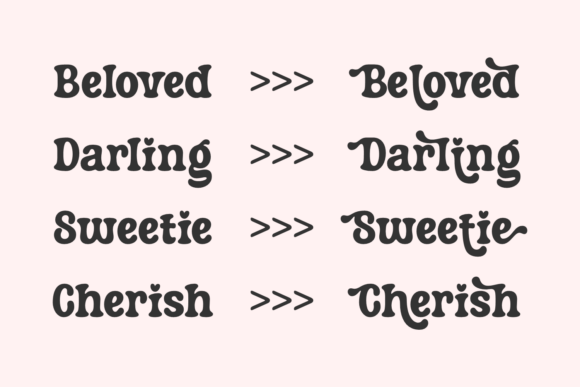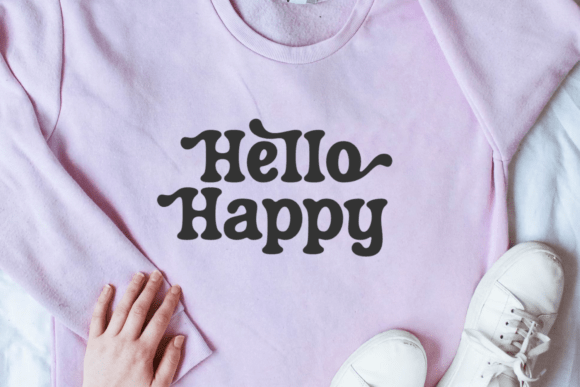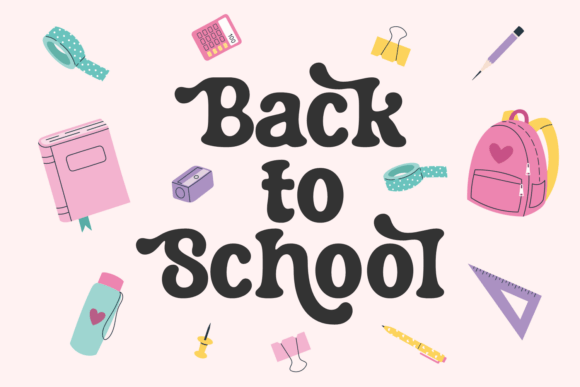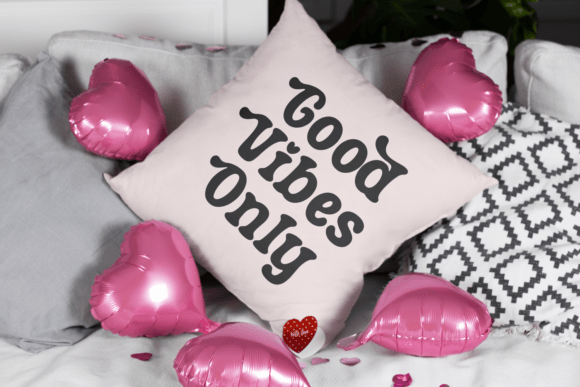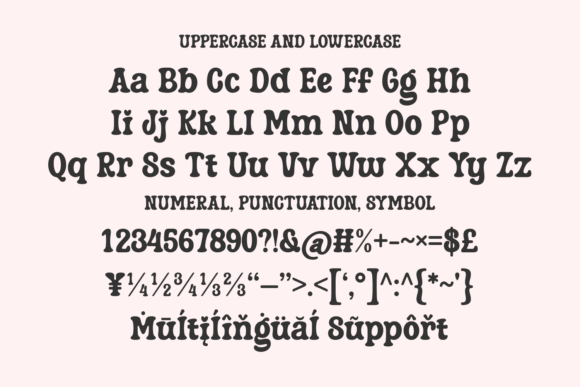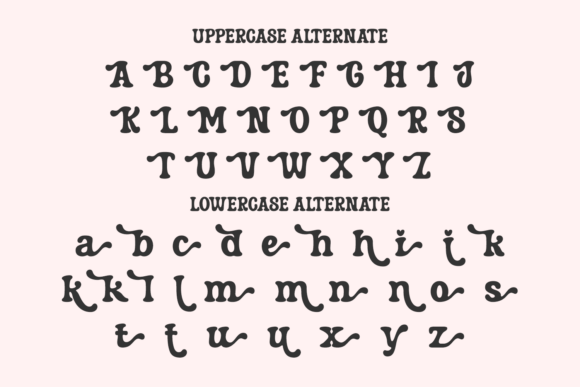
Introduction to Funky Pickle Font
Remember that moment when you stumbled upon the perfect font for your design project? The one that elevates your creativity and makes your work stand out from the crowd? For designers, finding that ideal font can be a game-changer. That’s exactly what the Funky Pickle Font offers – a unique blend of vintage charm and modern sophistication that’s sure to captivate your audience.
As a valuable resource for designers, the Funky Pickle Font is a high-quality design asset that can be easily downloaded and integrated into your creative project. With its transparent background and quirky appeal, this font is perfect for a variety of themes, from hipster to hippie, and everything in between. Whether you’re working on a birthday design or a romantic Valentine’s project, the Funky Pickle Font is sure to add an extra layer of sophistication and style.
Key Features of Funky Pickle Font
- Unique, hand-drawn design making it a great resource for creative projects
- Perfect for designers looking for a fun and quirky design element to add to their next project
Honest Review: Funky Pickle Font
One of the things that works well for the Funky Pickle Font is its versatility. It’s perfect for creative projects that need a dash of whimsy, from children’s books to quirky advertisements. The font’s bold lines and playful feel make it a standout choice for any designer looking to add some personality to their design.
- May not be suitable for formal or professional projects
- Can be overwhelming in large quantities, so use with caution
Overall, I’m thoroughly impressed with the Funky Pickle Font. It’s a fantastic addition to any designer’s toolkit, and I’ve already incorporated it into several of my recent projects. If you’re looking for a fun and creative font to spice up your design, I highly recommend giving the Funky Pickle Font a try.
Funky Pickle Font is commonly used in creative projects such as social media graphics, flyers, and posters. Its unique style makes it perfect for grabbing attention and adding a playful touch to your designs.